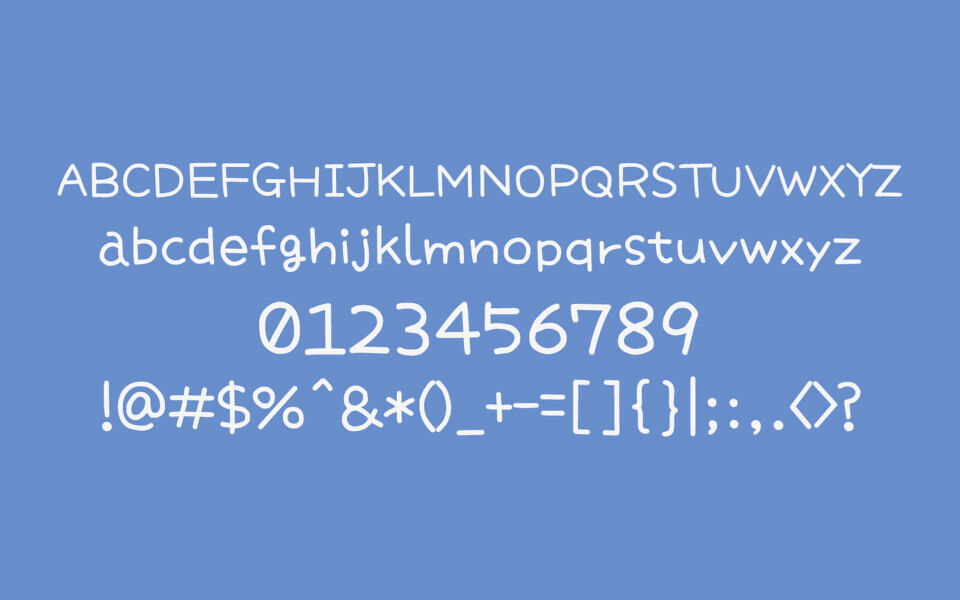
Xiaolai is a free delightful, organic typeface inspired by Nozomi Seto’s Seto font, blending playfulness with elegance. Its soft, rounded strokes craft a warm, approachable vibe.
With broad language support, Xiaolai suits multilingual projects, shining in branding, social media, children’s books, UI design, and creative typography. Whether building a charming visual identity or enriching digital spaces, Xiaolai adds personality and coziness to every design, one endearing stroke at a time.